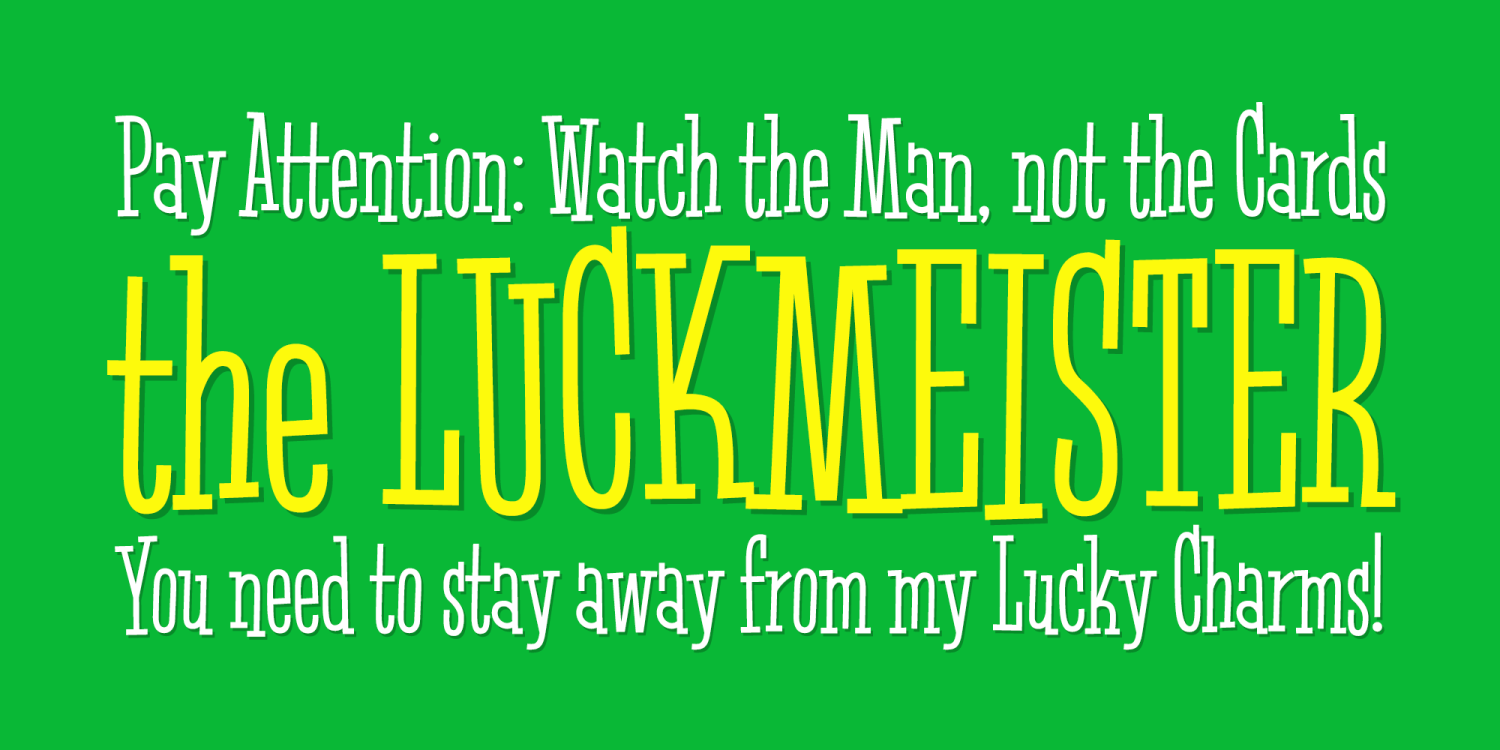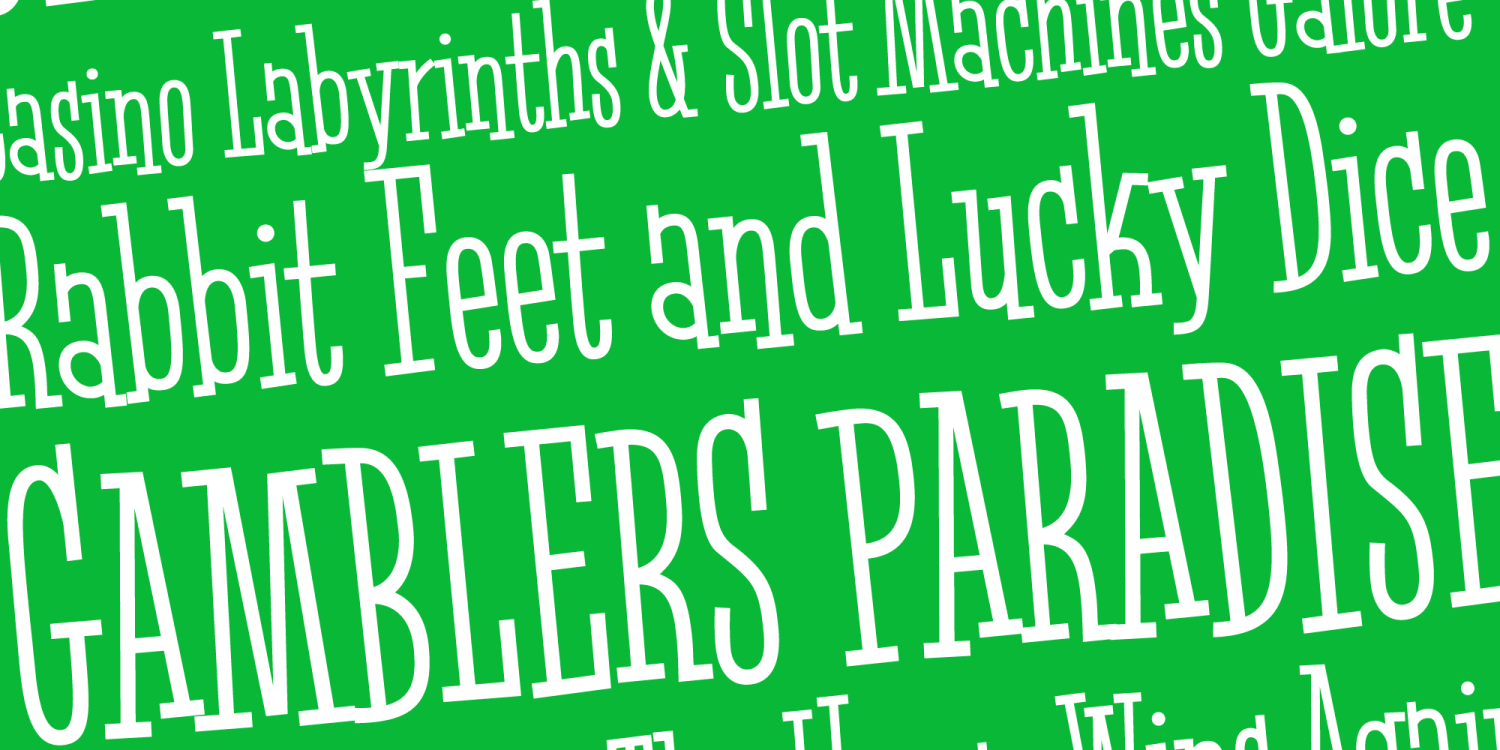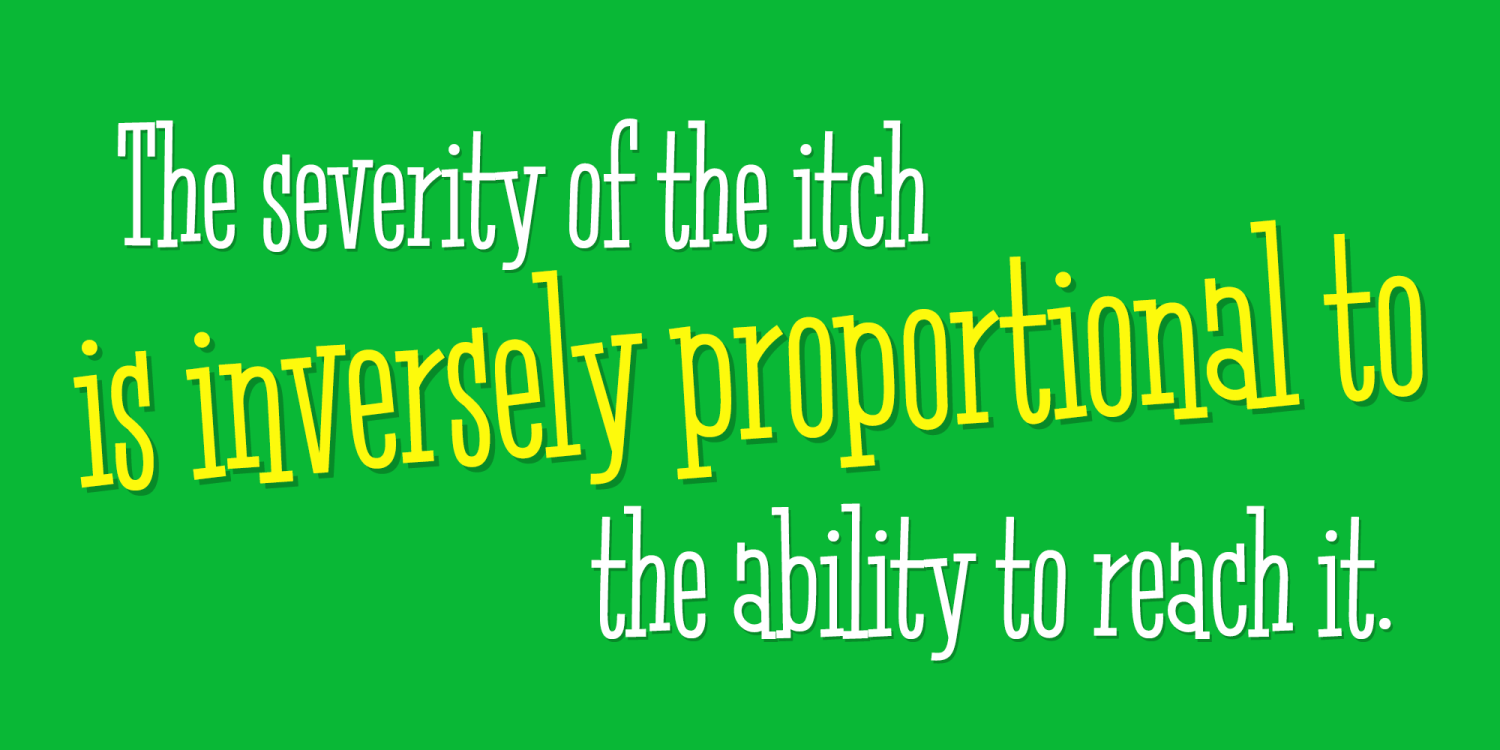
Luckmeister
Font Family by Pink Broccoli
From the vintage record cover, "Music from MR. LUCKY", composed and conducted by Henry Mancini, comes this offbeat and full of life condensed serif typeface. A uniform stroke structure and a light baseline bounce give this typeface a festive yet serious duality of a personality.